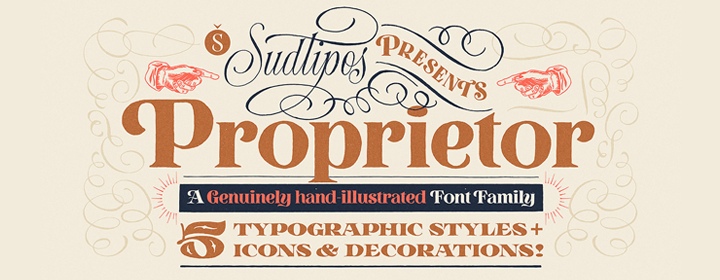
Proprietor Font
Proprietor Font is perfect for various design applications including heritage brand identities, established business logos, traditional gentleman's clubs, classic menswear brands, vintage whiskey labels, distinguished law firm materials, prestigious private clubs, heritage hotel signage, traditional barbershop branding, and distinguished gentleman's lifestyle products. This authoritative typeface excels in projects requiring established credibility and timeless sophistication that communicates ownership, tradition, and distinguished business heritage.
What makes Proprietor Font so exciting is its commanding embodiment of business authority and established prestige through letterforms that suggest generational ownership and unwavering quality standards. The font features strong, confident strokes that communicate reliability, classic proportions that evoke traditional craftsmanship, and distinguished character details that suggest heritage and established reputation. Its distinctive authoritative presence and timeless appeal make it perfect for businesses seeking to communicate longevity, trustworthiness, and the sophisticated confidence that comes from proven success.
The Proprietor Font family includes multiple weights from regular to bold, along with complementary styles that enhance its versatility for different prestigious applications. Each style maintains the font's signature authoritative character while providing options for various distinguished design approaches. The family also features classic ornamental elements, traditional borders, and heritage-inspired decorative symbols that can be combined with the letterforms to create cohesive established business design systems.
Whether you're developing heritage brands, established business identities, or prestigious service communications, Proprietor Font Free Download delivers the typographic authority that distinguished organizations require. This typeface transforms routine communications into statements of established credibility that reflect business maturity and proven success. The font's prestigious appeal makes it particularly effective for luxury service providers, established financial institutions, and businesses targeting clientele who value tradition, quality, and proven business heritage.
Proprietor Font stands out by delivering authentic business authority that feels genuinely established rather than artificially prestigious or newly created. Its carefully crafted traditional proportions and distinguished details ensure that designs feel connected to real business heritage and proven success. From established company communications to prestigious service branding, this font provides designers with tools to create communications that celebrate business longevity and demonstrate sophisticated understanding of traditional authority through confident, heritage-inspired typography that commands respect and trust.